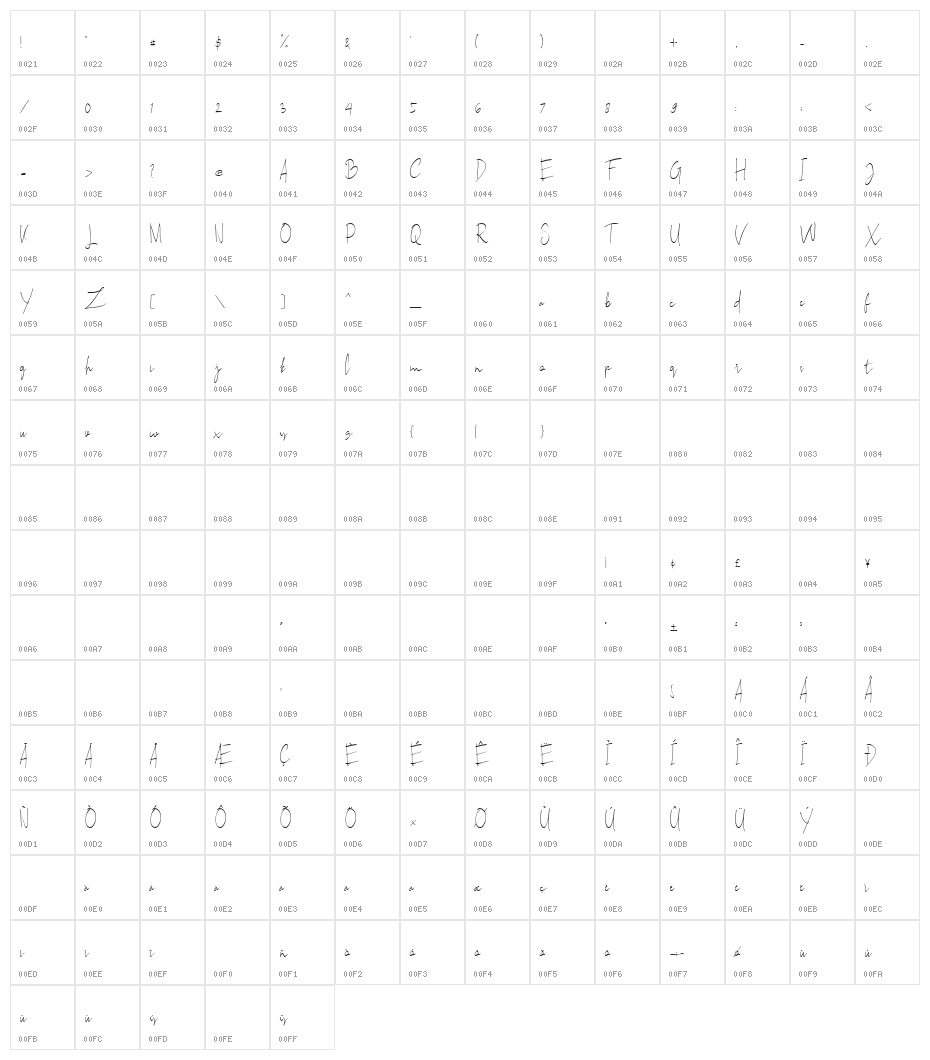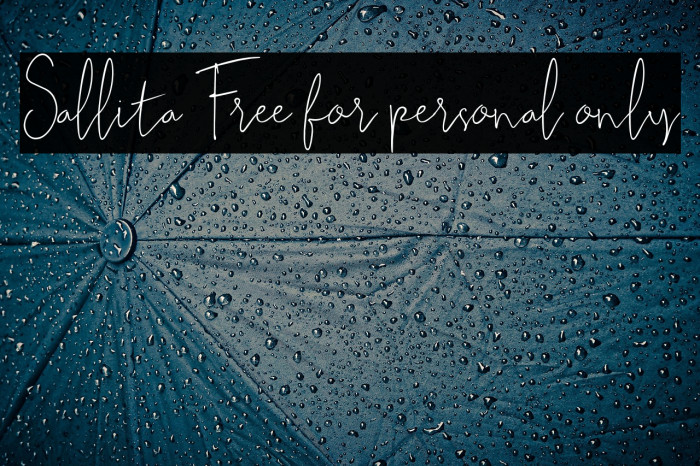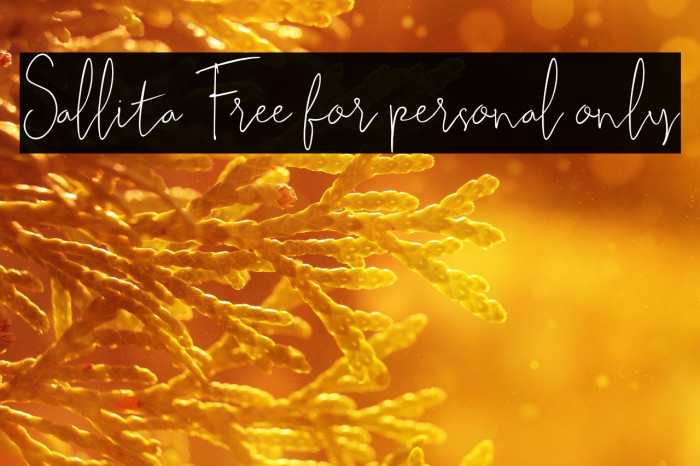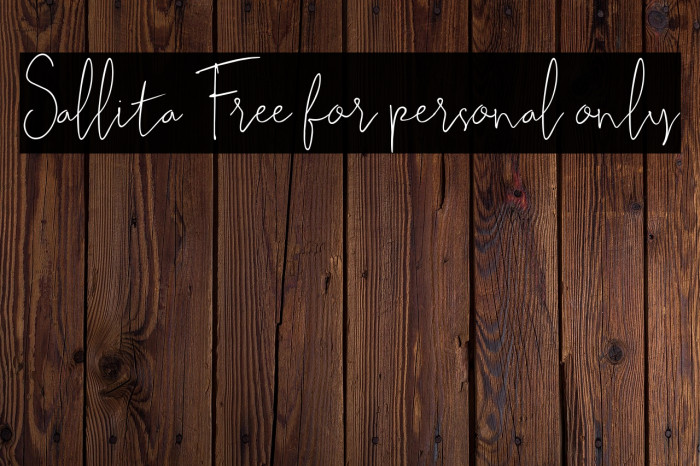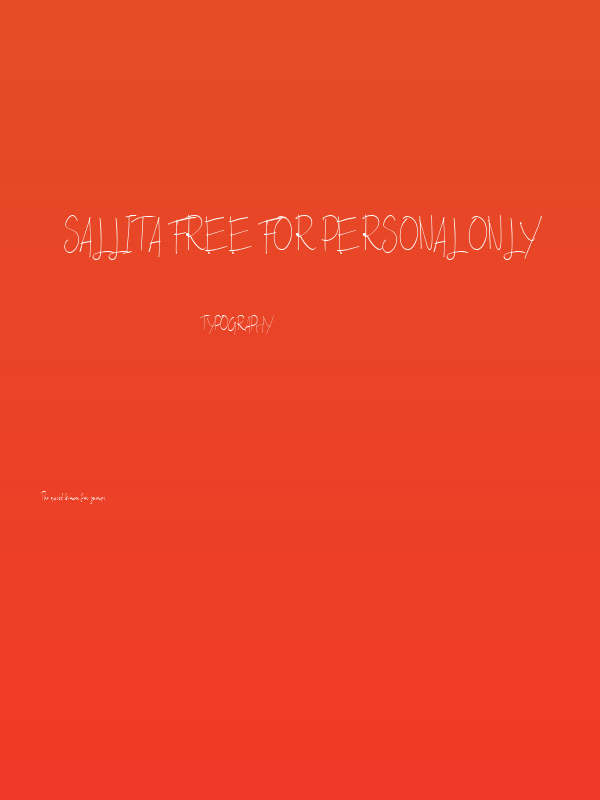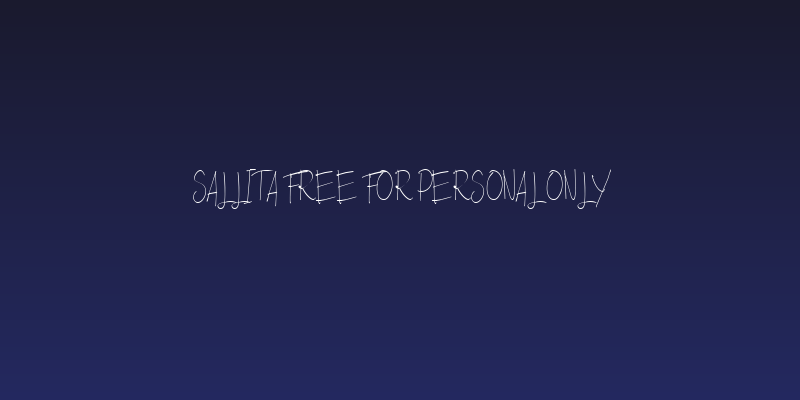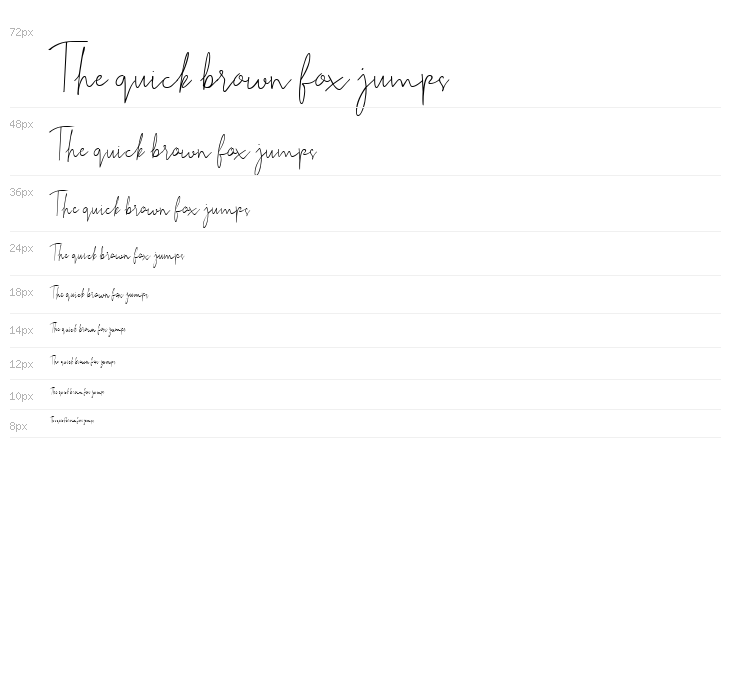
Sallita Free for personal only Font
Sallita Free for personal only Description
This font features a delicate, handwritten style with a whimsical and artistic flair. The uppercase letters are tall and slender, with a slight slant that adds a sense of motion and elegance. The lowercase letters maintain a consistent flow, with smooth curves and loops that enhance the handwritten aesthetic. The numbers are similarly styled, maintaining the font's overall light and airy feel. Special characters are integrated seamlessly, complementing the font's artistic nature. This font is perfect for projects that require a personal touch, such as invitations, greeting cards, or branding materials that aim to convey creativity and sophistication.
| Proposed Projects | Ideal for wedding invitations, personal branding, greeting cards, and artistic projects. |